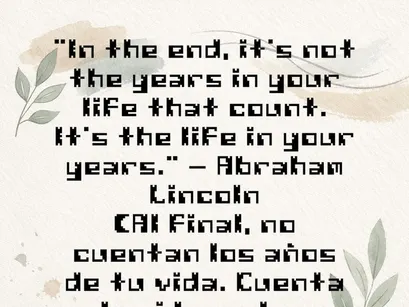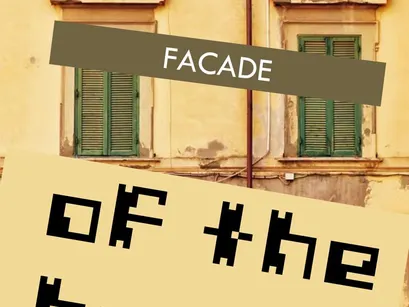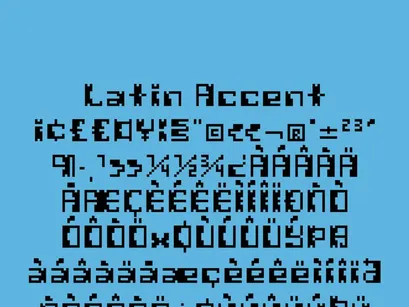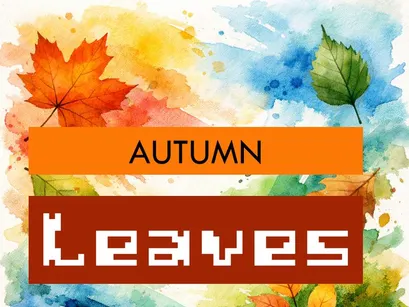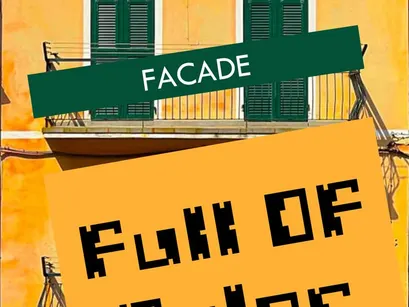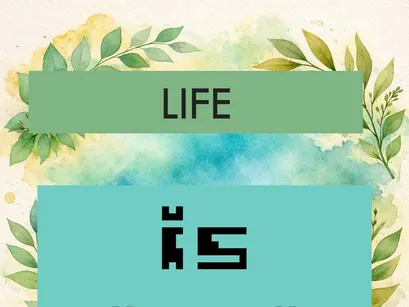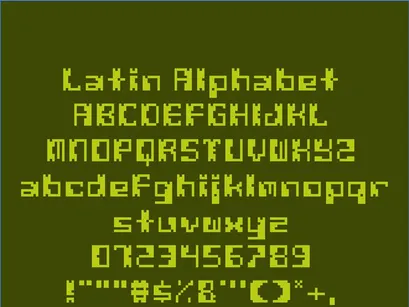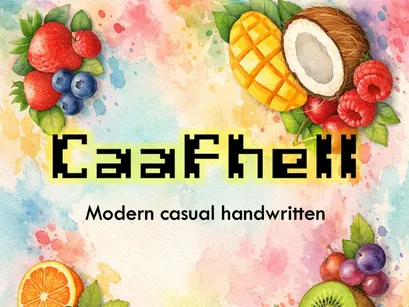
Caafhell is a modern, casual handwritten typeface inspired by the fusion of the digital and the handcrafted.
Its consistent, geometric strokes convey energy, freshness, and creativity—ideal for projects seeking a contemporary style with personality.
Perfect for:
• Covers, planners, and agendas
• Artistic, modern branding
• Digital designs with a natural feel
🍓 With its solid structure and cheerful spirit, Caafhell is the ideal font to bring your creative projects to life.